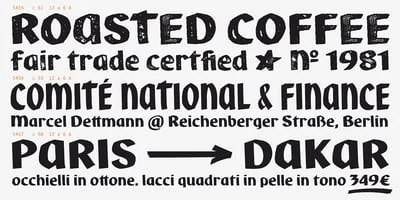
Marjac Font
Marjac Font is ideal for luxury yacht clubs, high-end maritime boutiques, premium sailing equipment, exclusive nautical brands, sophisticated marina signage, upscale coastal restaurants, luxury sailing magazines, elite nautical events, premium boat dealerships, exclusive waterfront properties, sophisticated maritime museums, and refined nautical lifestyle communications.
This font is exciting because it embodies the sophisticated elegance and maritime luxury of exclusive yachting culture, featuring sleekly refined letterforms that navigate the page with the same polished grace and nautical sophistication found in the world's most prestigious yacht clubs and luxury marinas where discerning sailors appreciate both the technical excellence of premium sailing equipment and the timeless elegance of maritime traditions that connect modern yachting to centuries of seafaring heritage. The expertly crafted character design reflects both the precision engineering required for luxury sailing vessels and the refined aesthetic sensibilities that define upscale nautical lifestyle, creating typography that feels both nautically authentic and luxuriously sophisticated. Each letter sails with the kind of maritime elegance and exclusive appeal that transforms ordinary text into invitations to experience the finest nautical lifestyle and premium sailing experiences.
The Marjac Font family includes regular and bold weights with complete character sets featuring nautical-inspired numerals, maritime punctuation marks, and decorative elements reminiscent of yacht hardware, sailing equipment, nautical compass designs, and luxury marina aesthetics. Advanced versions may offer additional stylistic variants with enhanced maritime effects, alternate characters that create flowing nautical connections, and sophisticated ornaments that celebrate the artistry of luxury sailing and premium nautical craftsmanship.
Whether you're developing luxury nautical branding, creating premium sailing marketing, or designing sophisticated maritime content, Marjac Font provides the nautical sophistication and maritime luxury your project needs to appeal to discerning audiences who appreciate the finest sailing equipment, exclusive yacht club membership, and the sophisticated lifestyle that comes with premium nautical experiences. This typeface transforms ordinary text into nautical declarations that honor both the technical excellence of luxury sailing and the timeless elegance of maritime traditions. The font's nautical character makes it perfect for brands targeting sophisticated sailors and luxury maritime markets. Premium sailing enthusiasts and luxury nautical marketers will appreciate how this font brings authentic maritime sophistication to their work with its genuinely nautical and luxuriously refined character that sets sail for excellence.